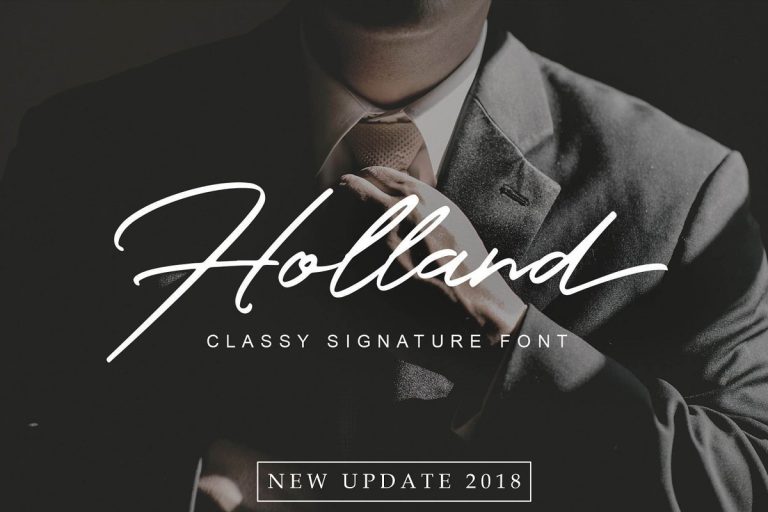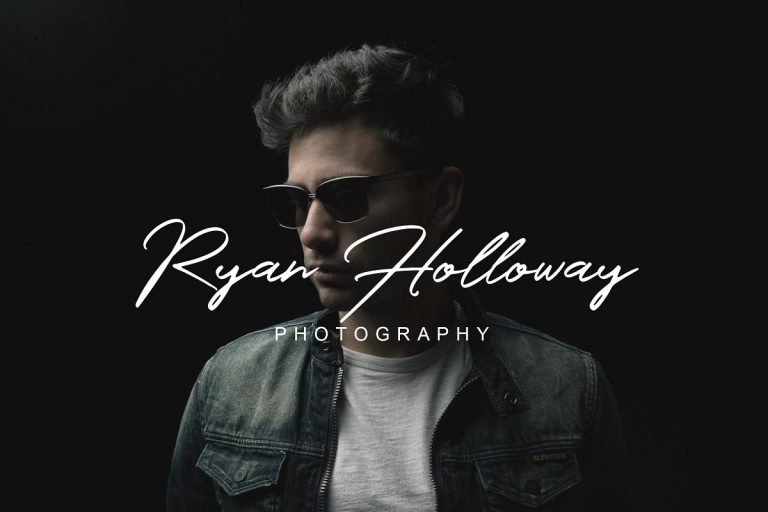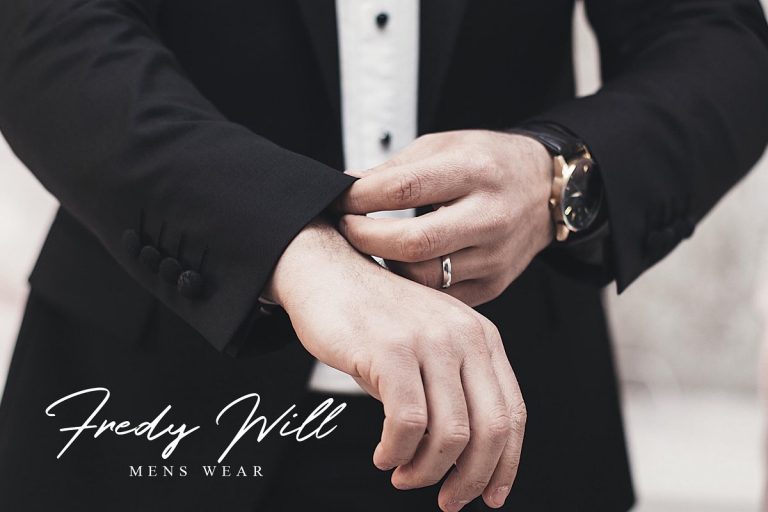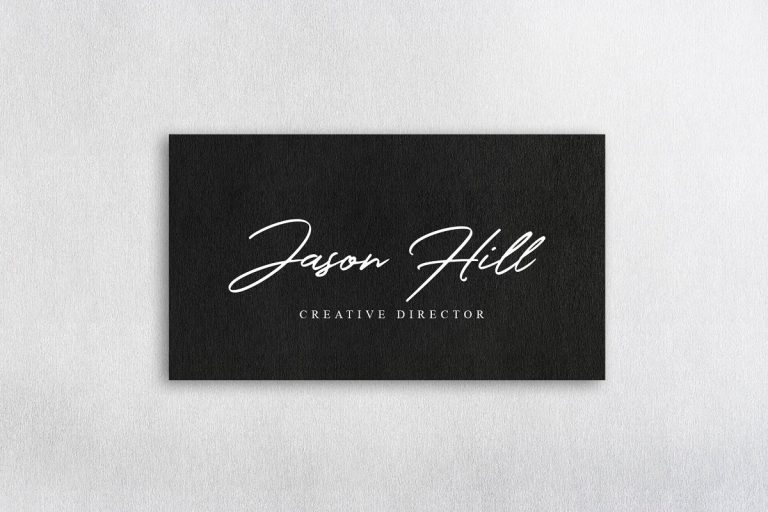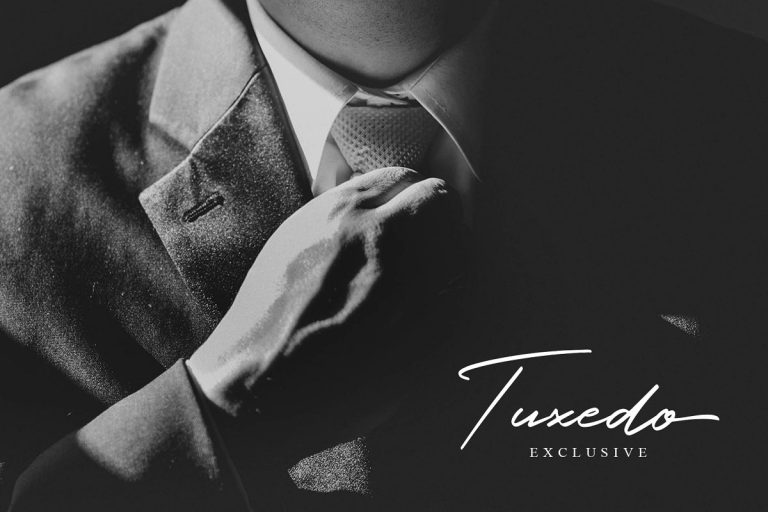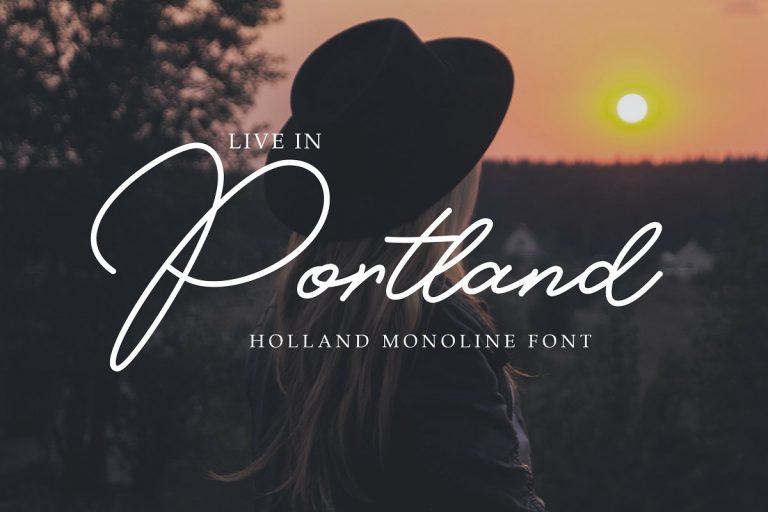
Holland has a confident signature style that makes logos feel premium, personal, and instantly recognizable without sacrificing readability.
I used Holland for wedding invitations and signage, and the elegant handwritten strokes gave every piece a beautiful, romantic finish.
Holland works perfectly for branding projects that need a stylish signature look with strong personality and clean visual balance.
This font feels polished and expressive. Holland adds a professional handwritten touch to simple layouts without making them appear overly decorative.
Holland looks amazing on photography logos and watermarks. The lettering feels modern, artistic, and sophisticated across different image styles.
I have used Holland in several logo concepts, and clients consistently love its natural movement, elegant details, and memorable appearance.
Holland gives promotional graphics a stylish lifestyle feel and works especially well for quotes, fashion posts, and personal branding.
I chose Holland for my company logo because it feels friendly, professional, and unique. It immediately improved the overall brand presentation.
The smooth signature style of Holland looks beautiful on cosmetic packaging, labels, and product cards while remaining clear and visually balanced.
Holland is easy to use and gives my client work an elegant custom-lettered appearance without requiring complicated manual adjustments.
it's a great font, but i had an issue: the uppercase is cut off in microsoft word.
Holland works beautifully on T-shirts and merchandise. The strong handwritten character remains attractive and readable even in large printed designs.
We used Holland in a lifestyle campaign, and it gave the visuals a warmer, more authentic, and premium personality.
Holland adds a stylish signature element to website headers, banners, and personal portfolios without distracting from the main content.
This font gave my boutique branding a fashionable and sophisticated identity. It looks especially lovely on shopping bags and thank-you cards.
Holland has the perfect balance between elegance and personality, making it suitable for invitations, greeting cards, and celebration materials.